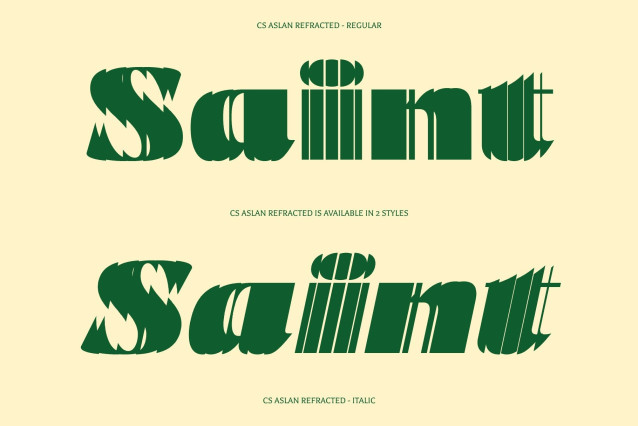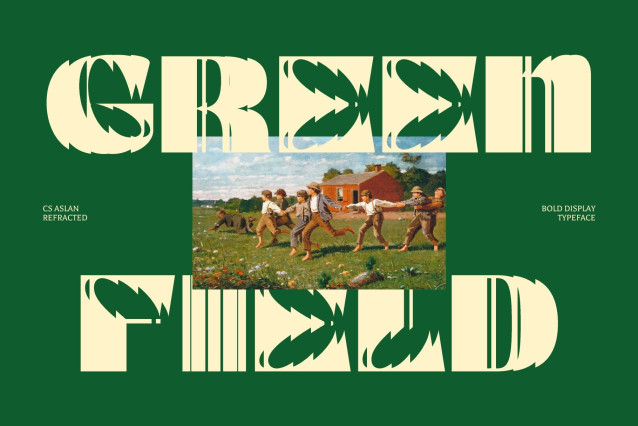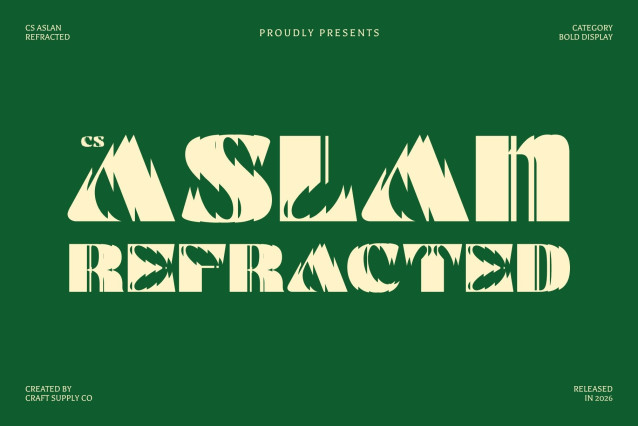
CS Aslan Refracted Font
CS Aslan Refracted – Bold Elegance, Timeless Strength with Futuristic Light Distortion
Classic Authority Reimagined in a Modern Form
This is a bold modern sans serif typeface that merges timeless strength with contemporary refinement. Built with confident letterforms and carefully tuned proportions, it delivers a commanding visual presence while maintaining a polished and sophisticated tone. Its structured design communicates authority, professionalism, and elegance in every character.
Refracted Geometry for a Contemporary Edge
The refracted styling introduces a futuristic layer to this font, where subtle geometric cuts and light-inspired slices interrupt its clean structure. These controlled distortions create a dynamic tension between tradition and innovation, giving the font a modern experimental identity. The result is a typeface that feels both classic in foundation and forward-thinking in execution.